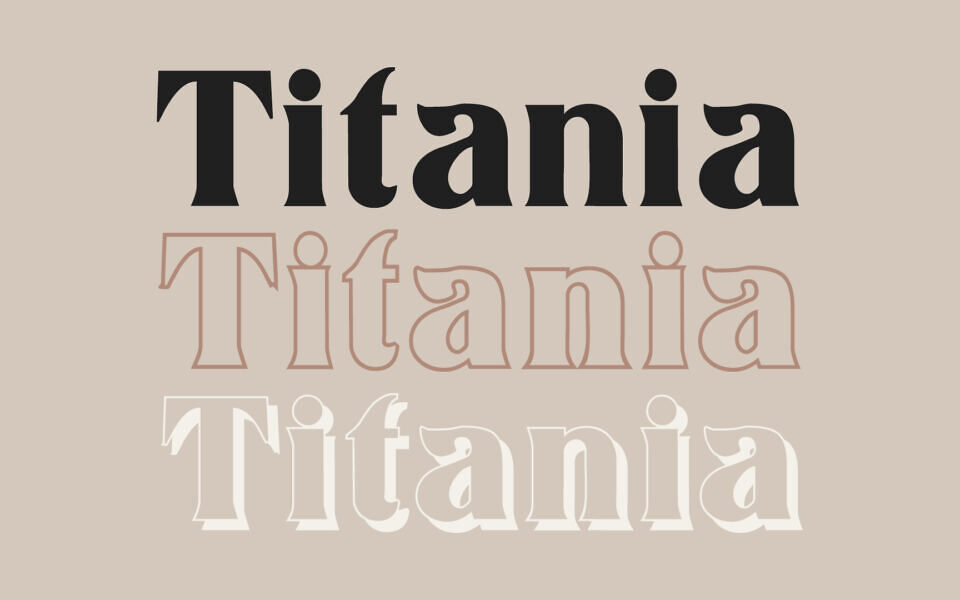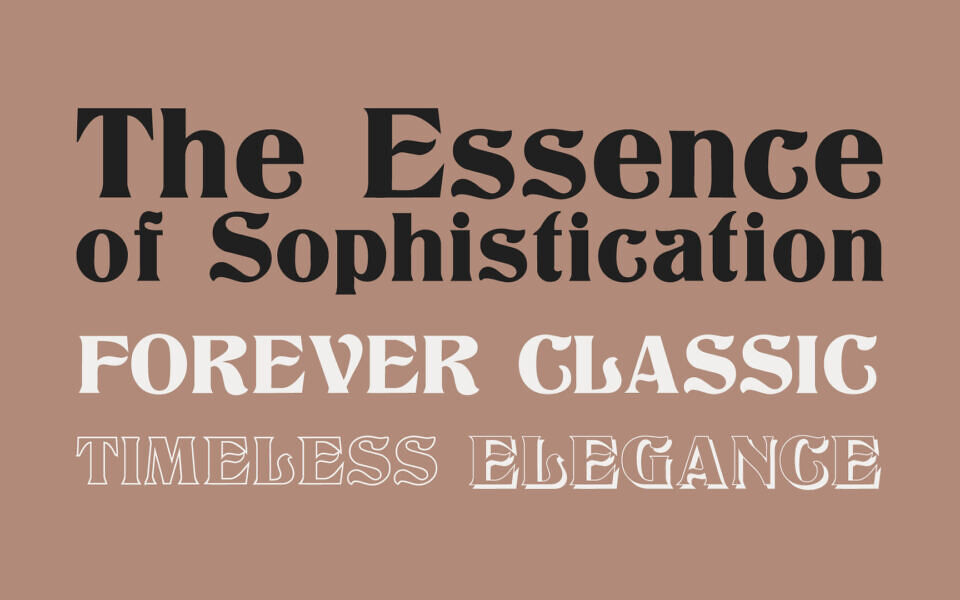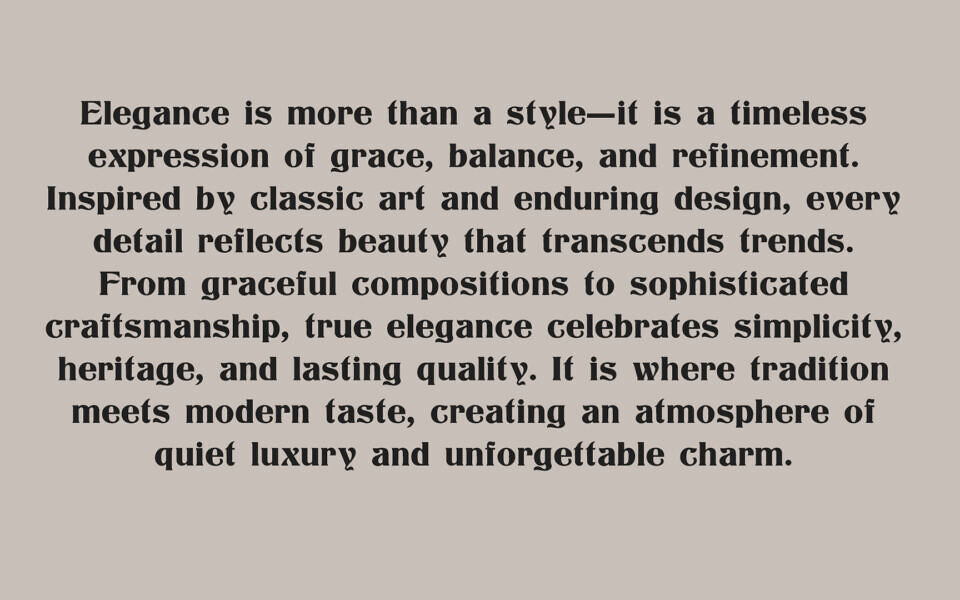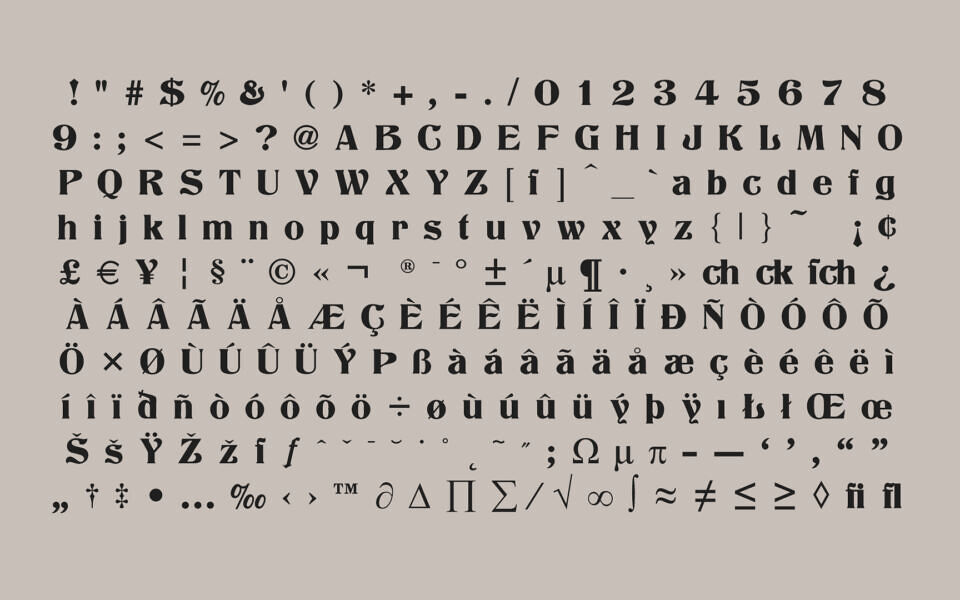
Titania Font Family
Titania is a classic and elegant font family designed by Dieter Steffmann. Featuring distinct variations like Regular, Outline, and Shadow, this versatile typeface offers a unique, sophisticated aesthetic suitable for a variety of design projects.
Its historical and retro-inspired flair makes it an excellent choice for headlines, posters, and creative displays that require a touch of elegance. Titania is available for both personal and commercial use, providing flexibility for designers seeking a timeless, stylistic edge.